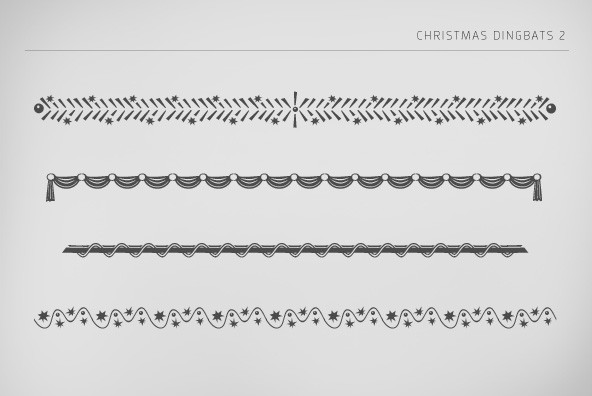
Christmas Dingbats 2
Christmas Dingbats 2 and Christmas Dingbats 1 are two Christmas fonts with different styles. Each font contains more than 90 Christmas icons, borders and ornaments.